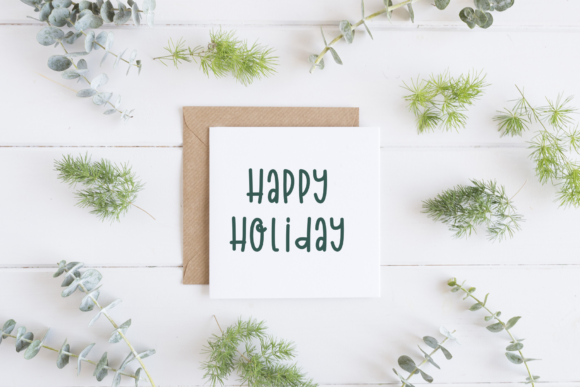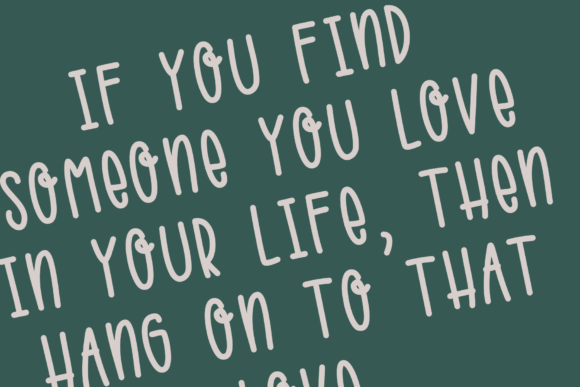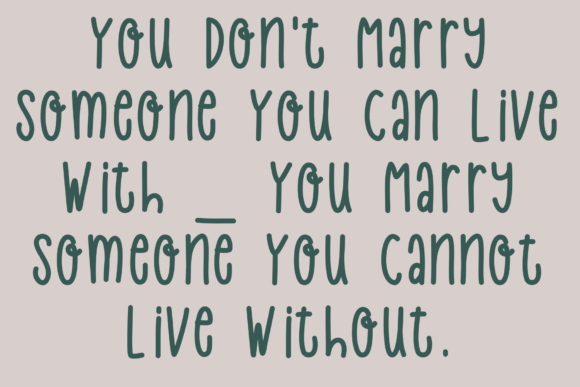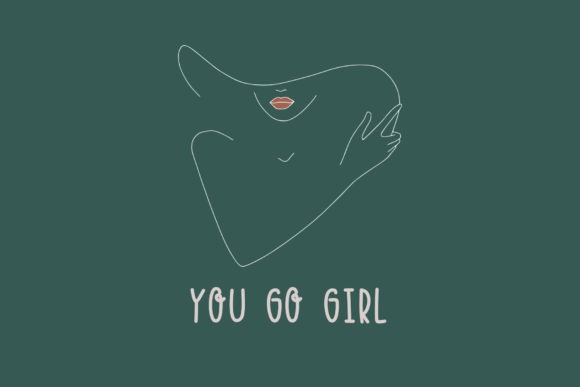
Introduction to Happy Holiday Font
Happy Holiday is a cute and simple lettered handwritten font.
It is suitable for any branding, product packaging, invitation, quote, t-shirt, label, poster, logo that you wish to develop .